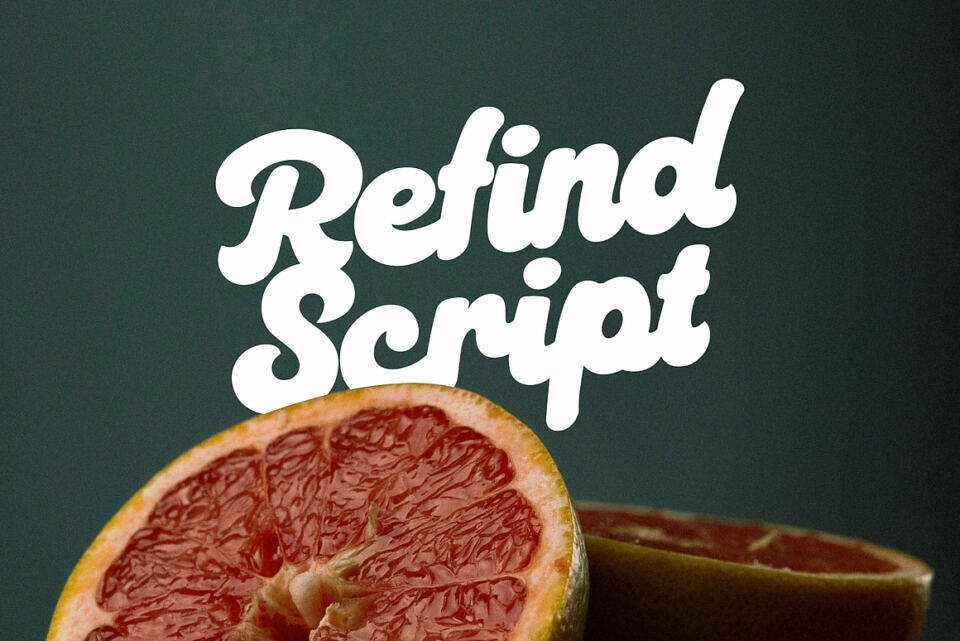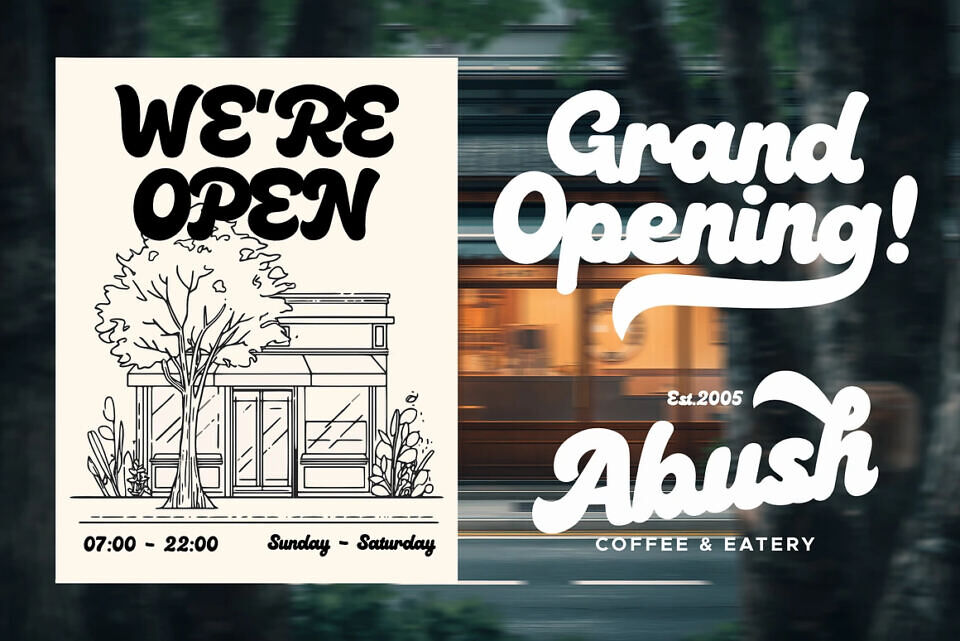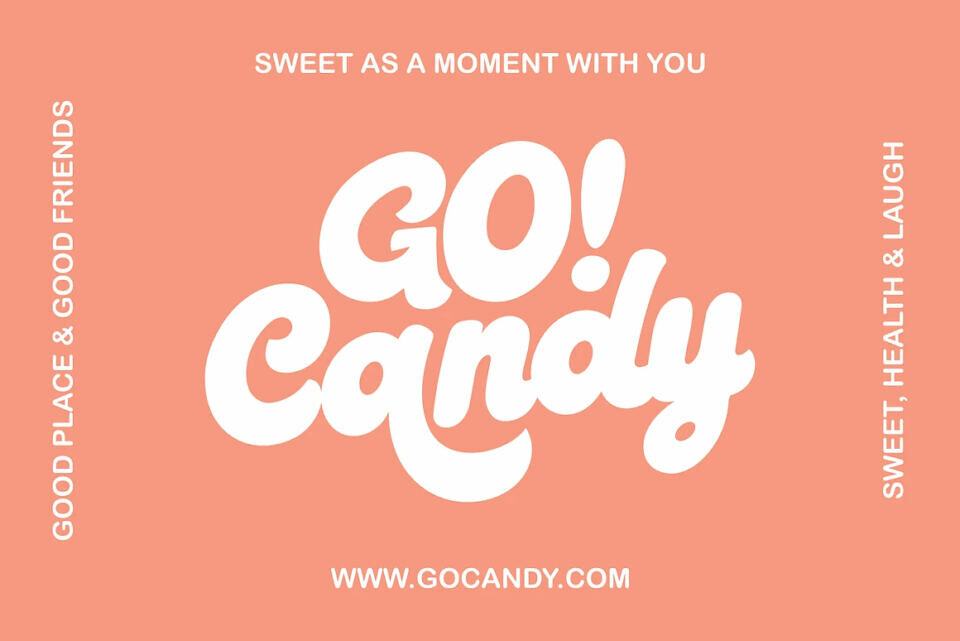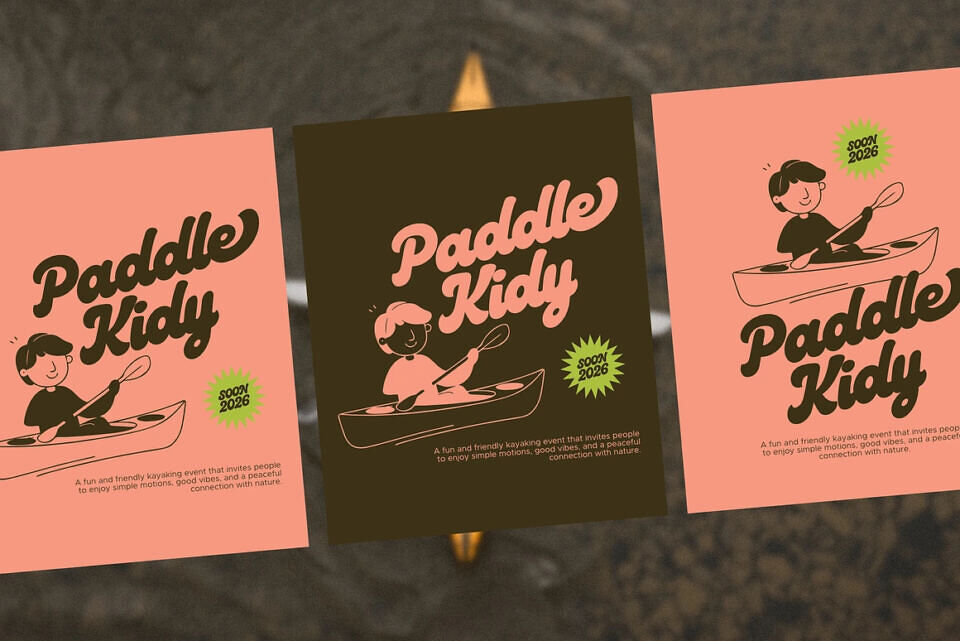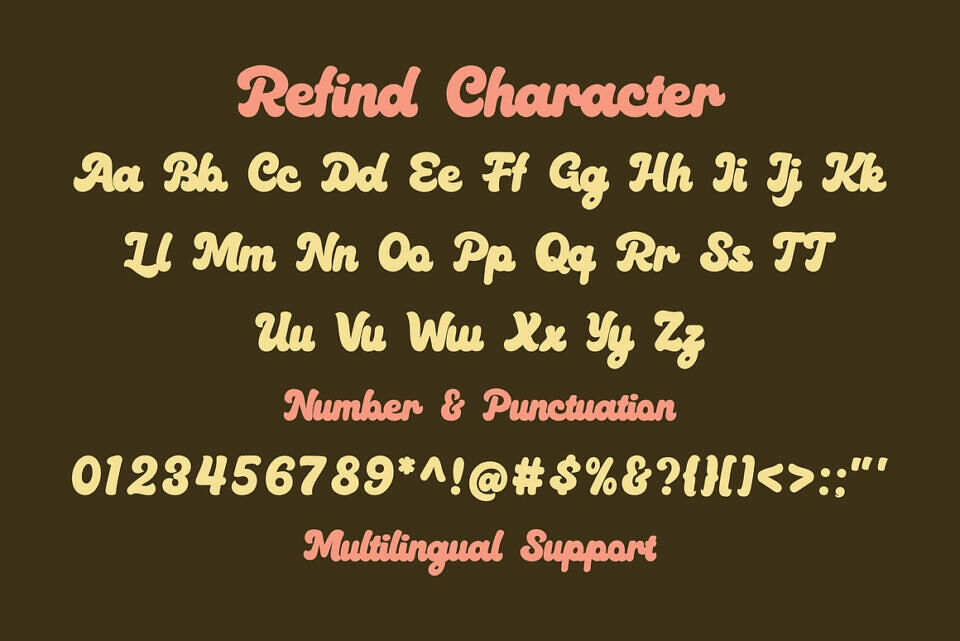
Refind Script is a bold, playful, and retro-inspired script typeface designed to bring warmth, personality, and charm to your designs. With its soft curves, thick strokes, and smooth connections, this font is perfect for creating eye-catching headlines and friendly brand identities.
Inspired by vintage signage, food packaging, and cheerful branding, Refind Script works beautifully across a wide range of creative projects—from logos and posters to packaging, social media, and editorial layouts.